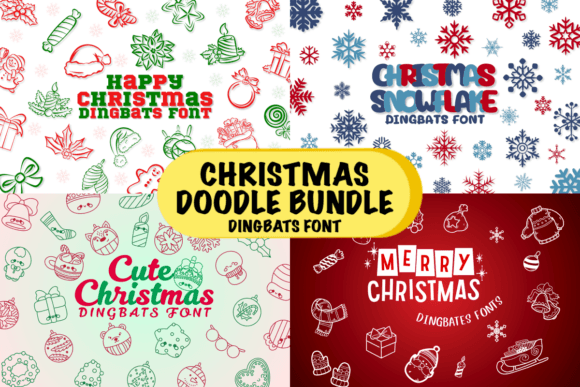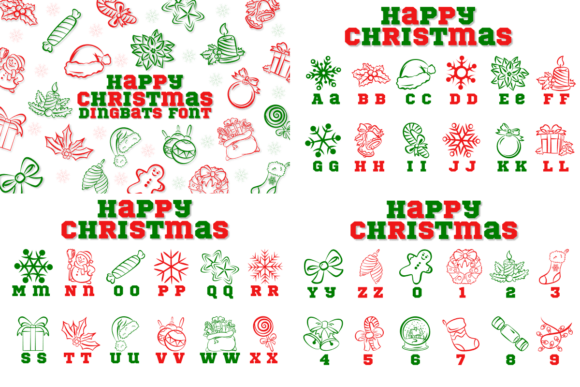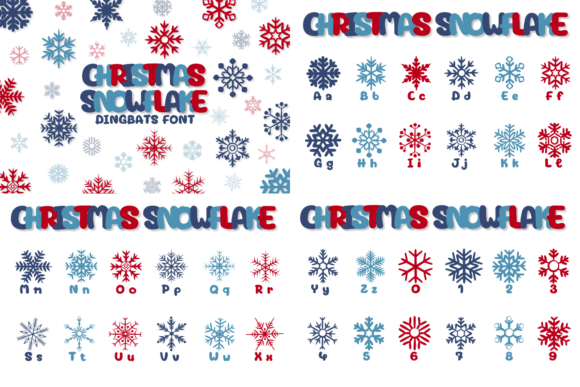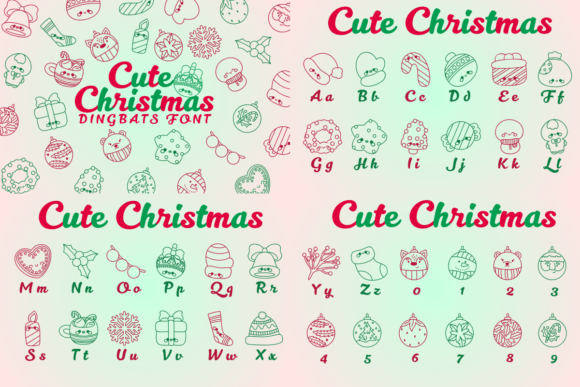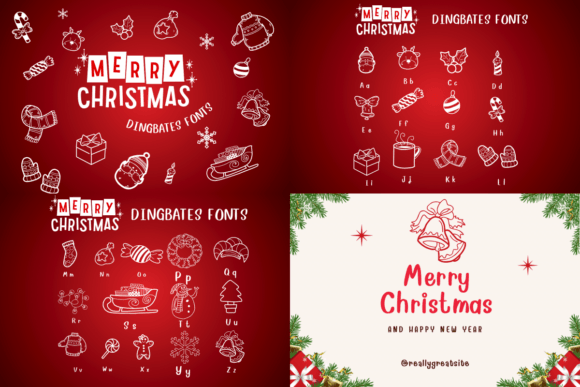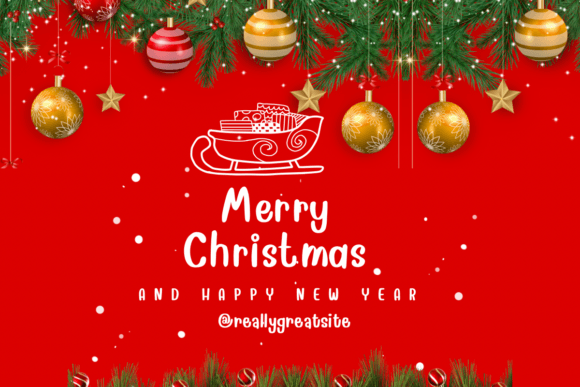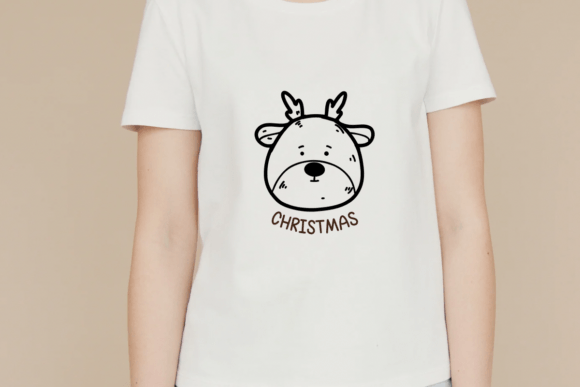
Deck the Halls with Holiday Cheer
There’s nothing quite like the feeling of getting creative during the holiday season. The twinkling lights, the sound of jingling bells, and the joy of giving – it’s a time of year that sparks imagination and inspires us to make something special. As you sit down to craft the perfect Christmas card or design a festive holiday project, you can’t help but wonder: how can I add a little more magic to this already merry season?
Enter the Christmas Doodle Bundle Font – a fun and festive dingbat font set filled with snowflakes, holiday decorations, and Christmas-themed designs. This delightful font is perfect for adding a cheerful touch to your creative projects, and with its wide range of designs, you’ll be spoiled for choice. Whether you’re a professional designer or a crafty hobbyist, the Christmas Doodle Bundle Font is a valuable addition to your toolkit.
Christmas Doodle Bundle Font Key Features
- Unique Doodle Design: A festive and playful font featuring doodle-style illustrations of Christmas elements, adding a whimsical touch to any design.
- Extensive Character Set: Includes a wide range of characters, including uppercase and lowercase letters, numbers, punctuation marks, and special characters, allowing for versatile use in various designs.
Christmas Doodle Bundle Font Review
Overall, I think the Christmas Doodle Bundle Font is a fun and festive addition to any holiday design project. ✨ It’s a great option for creating cheerful and playful graphics, and the variety of doodles and icons included in the bundle is impressive.
Here are some specific things that I think work well:
- ✨ The font is highly customizable, allowing users to adjust the size, color, and style of the doodles to fit their design needs.
- ✨ The bundle includes a wide range of doodles and icons, from snowflakes and snowmen to trees and presents.
- ✨ The font is easy to use, even for designers who are new to working with doodle fonts.
However, there are a few limitations to be aware of:
- ⚠️ The font may not be suitable for all types of design projects, particularly those that require a more formal or traditional look.
- ⚠️ Some of the doodles may be a bit small or hard to read, particularly at smaller font sizes.
Overall, I think the Christmas Doodle Bundle Font is a great option for designers who want to add some holiday cheer to their projects. With a little creativity and experimentation, it’s easy to create fun and festive designs using this font.
Use the Christmas Doodle Bundle Font to create festive holiday designs, such as greeting cards, gift tags, and invitations. You can also use the font to add a playful touch to your social media graphics, blog posts, and website content. Experiment with different font combinations and doodle elements to create unique and eye-catching designs.